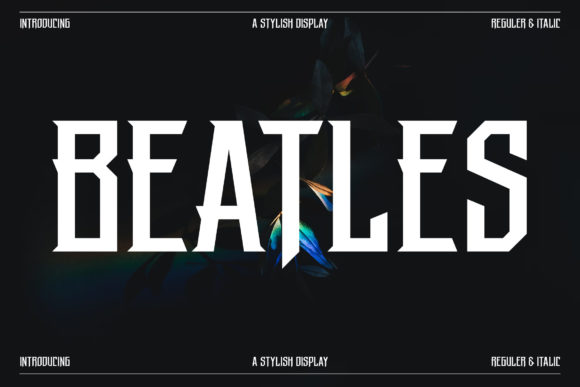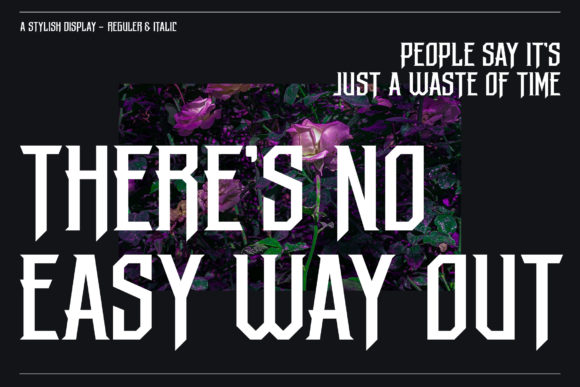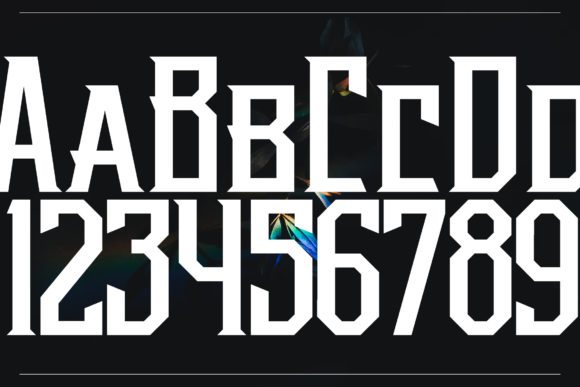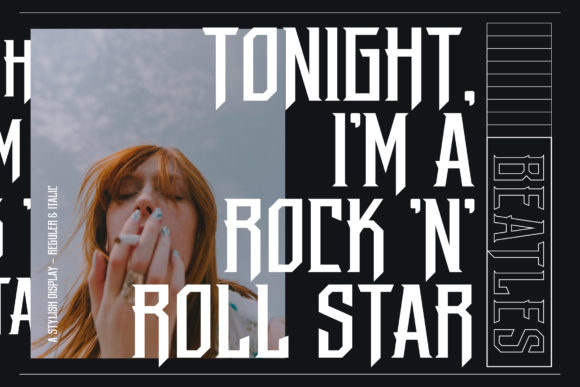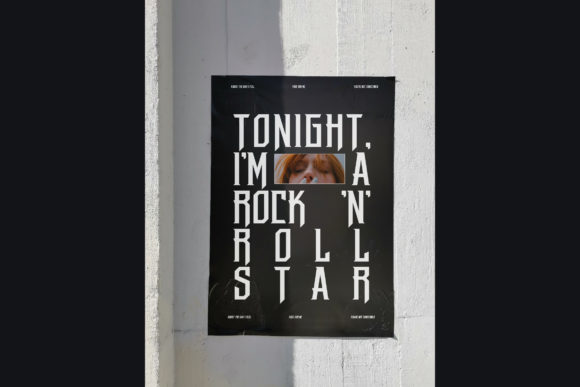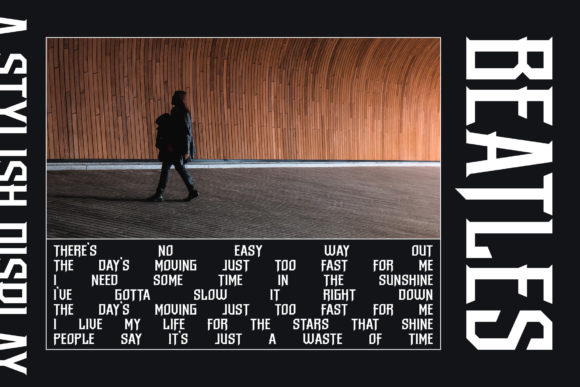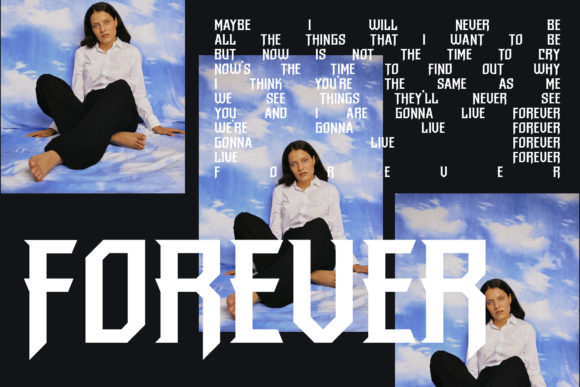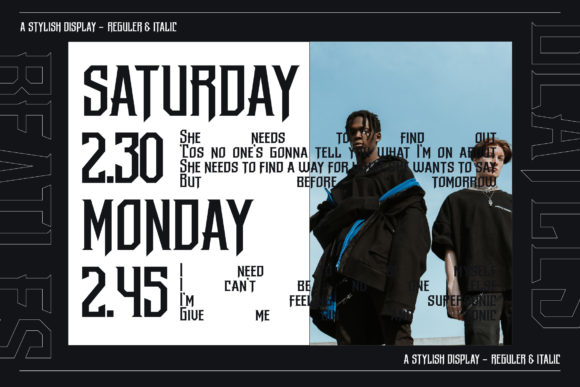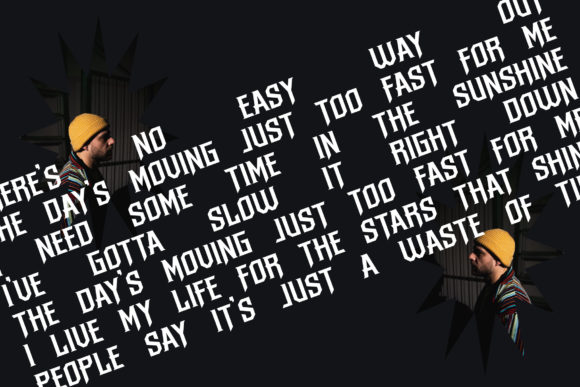
Beatles Font
BEATLES is a serif modern and classic typeface that has its own unique style & modern look.
This typeface is perfect for an elegant & luxury logo, book or movie title design, fashion brand, magazine, clothes, lettering, quotes, and so much more.